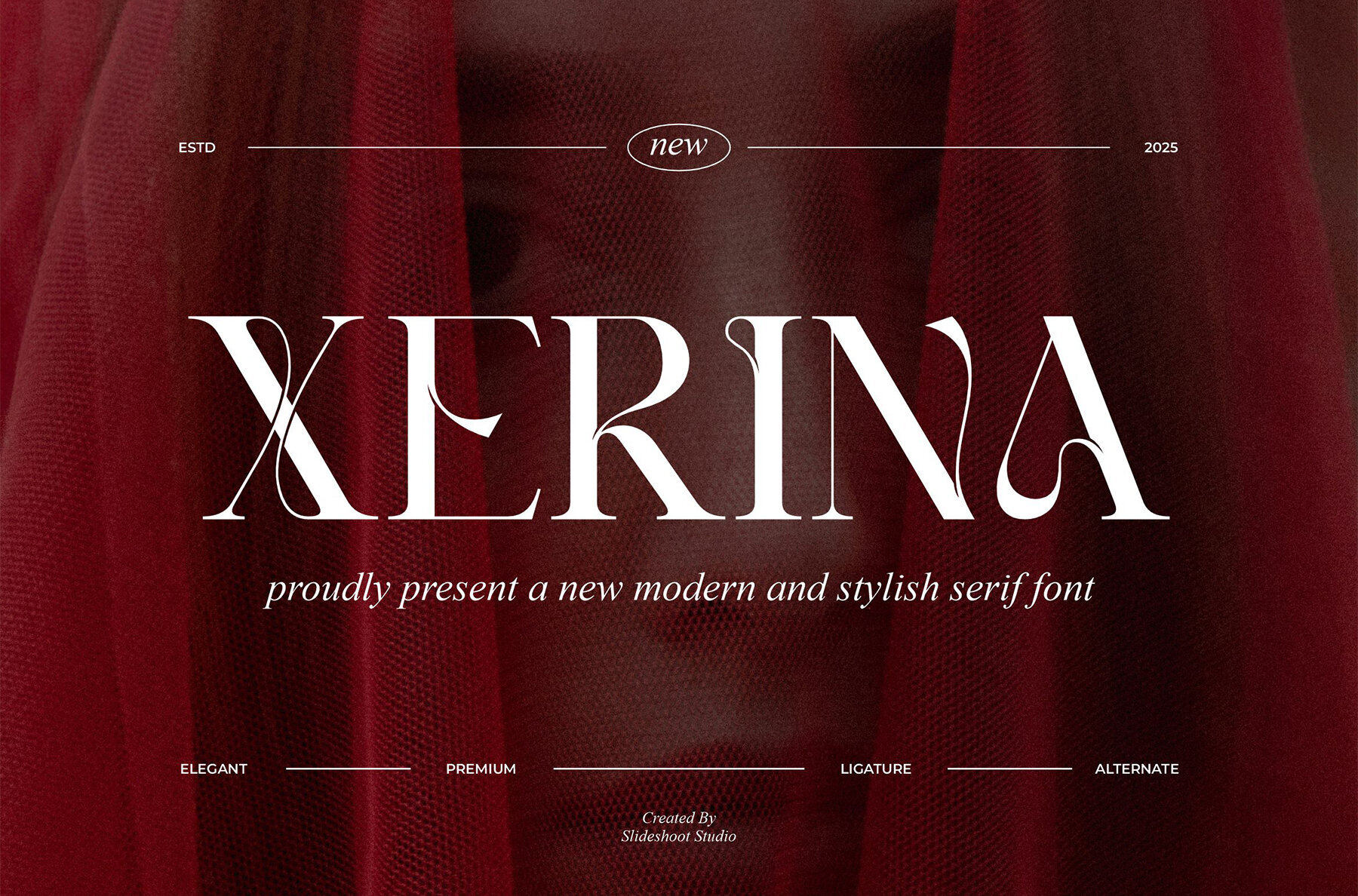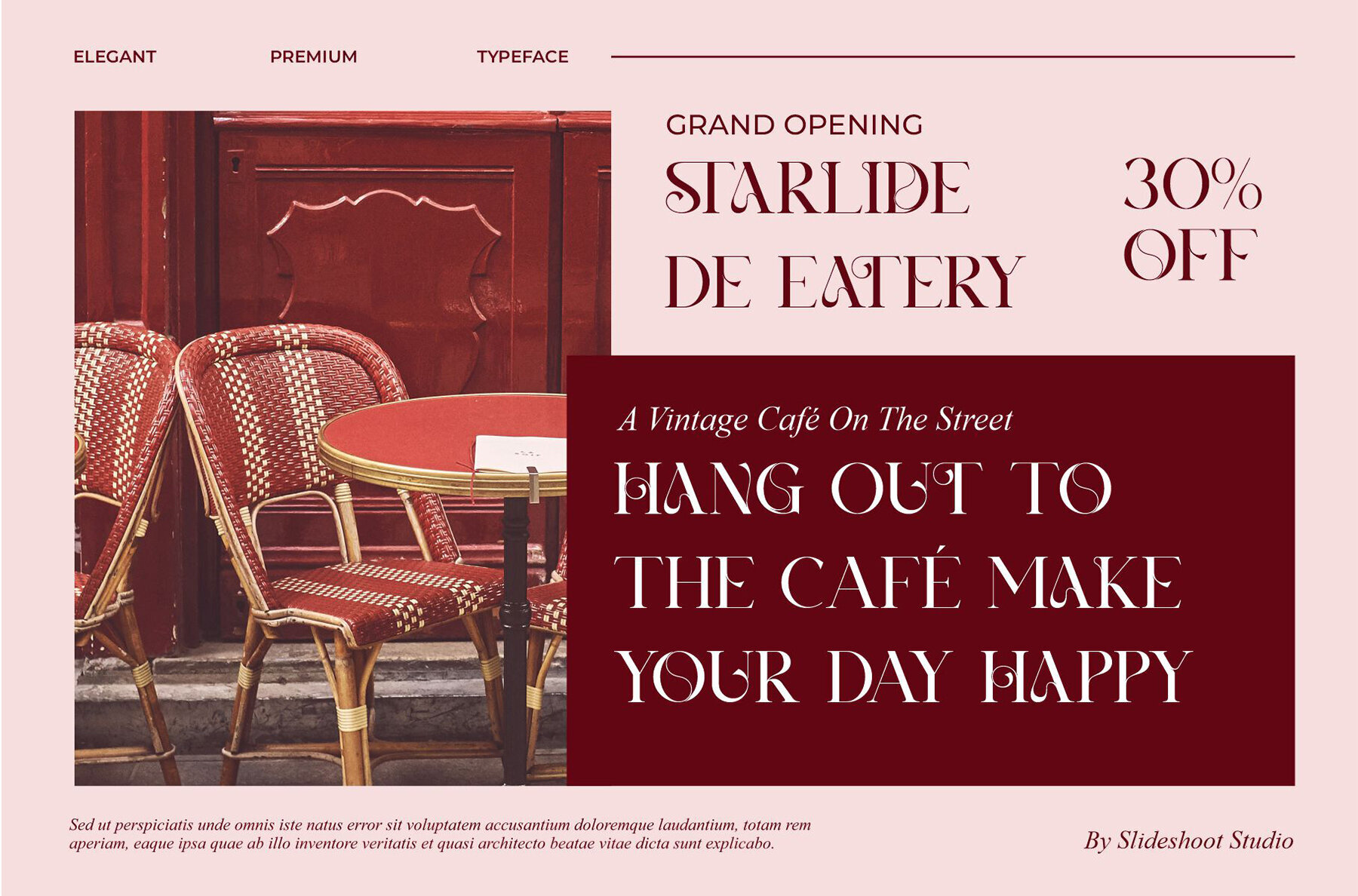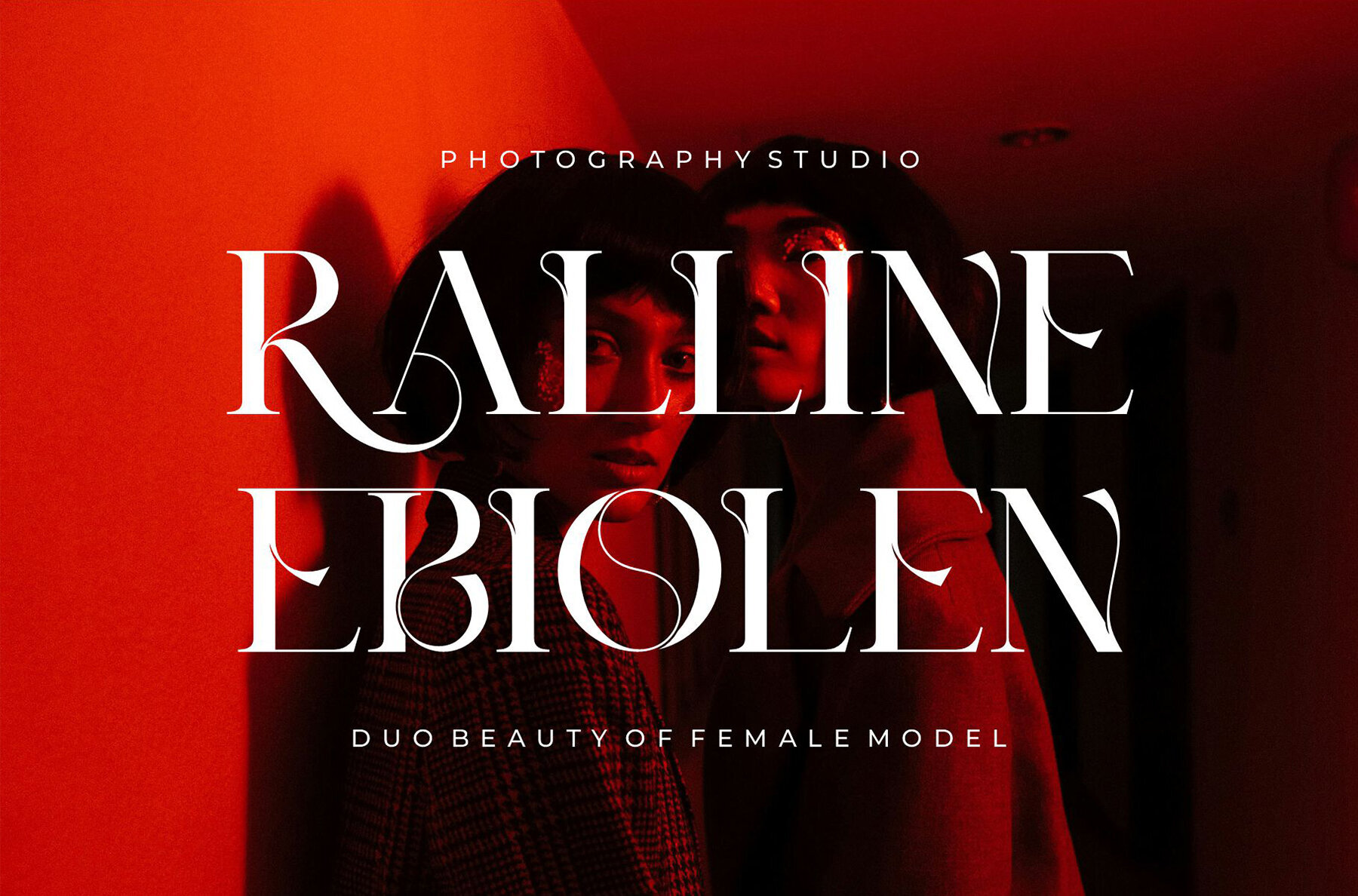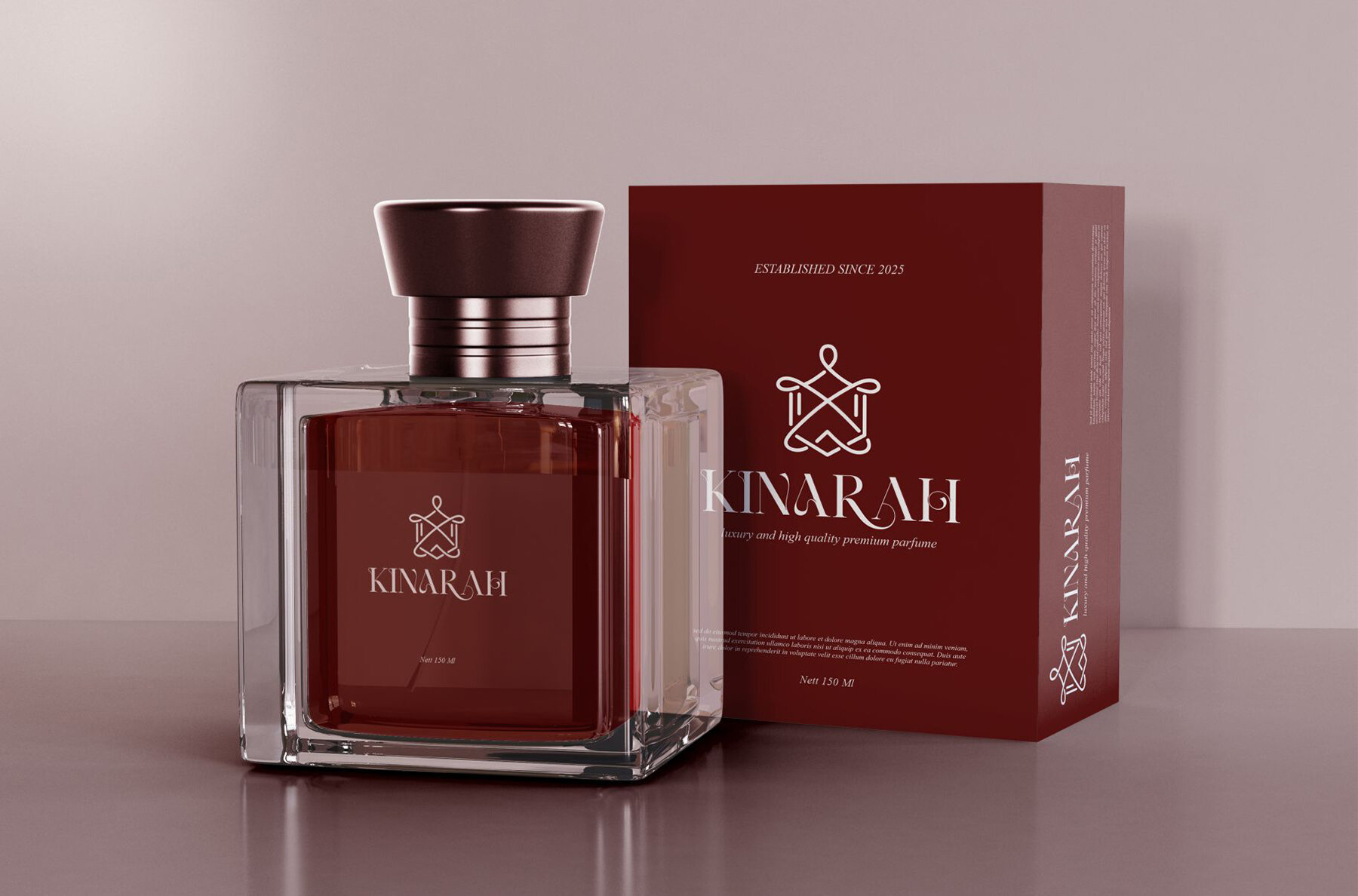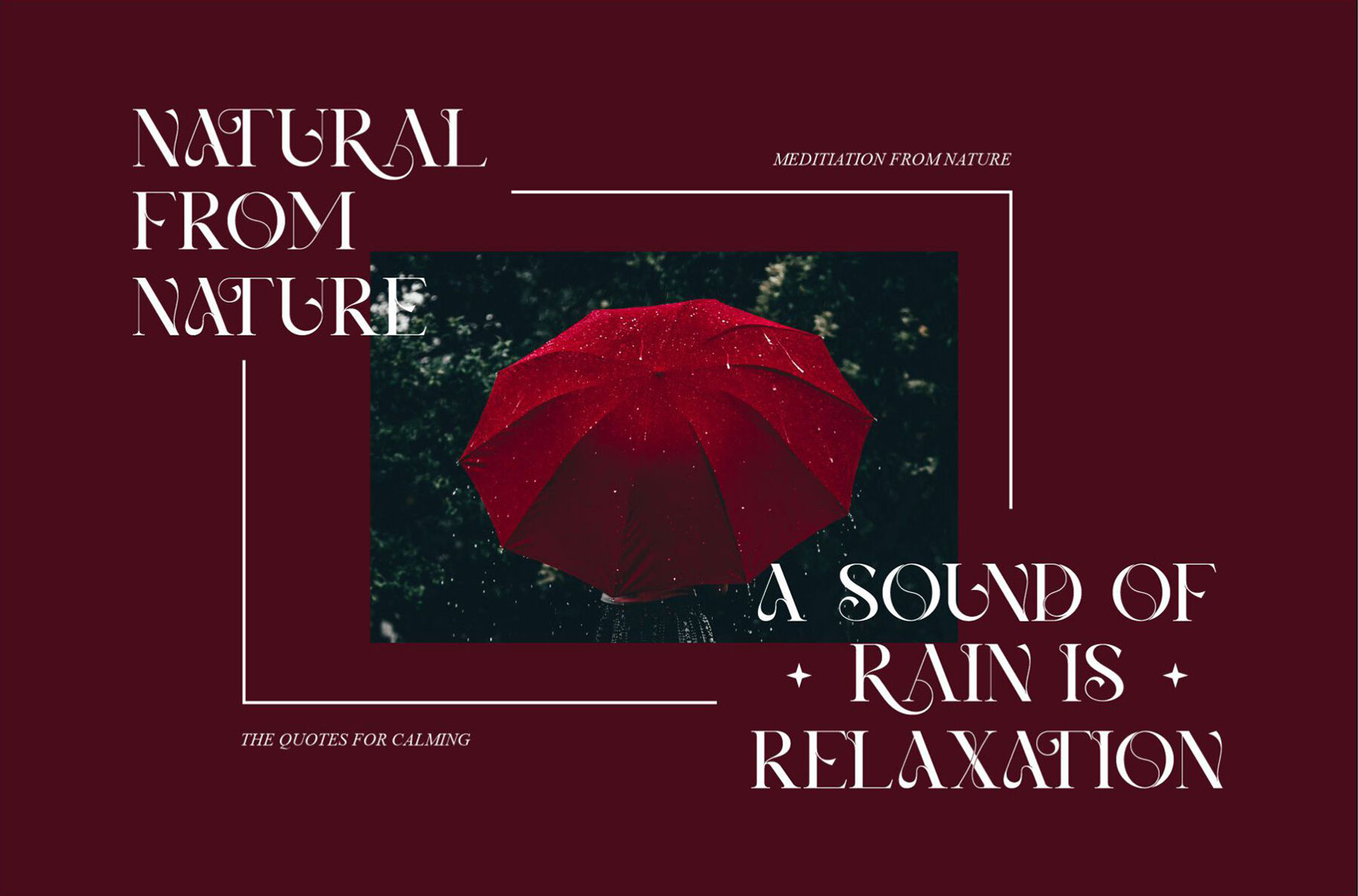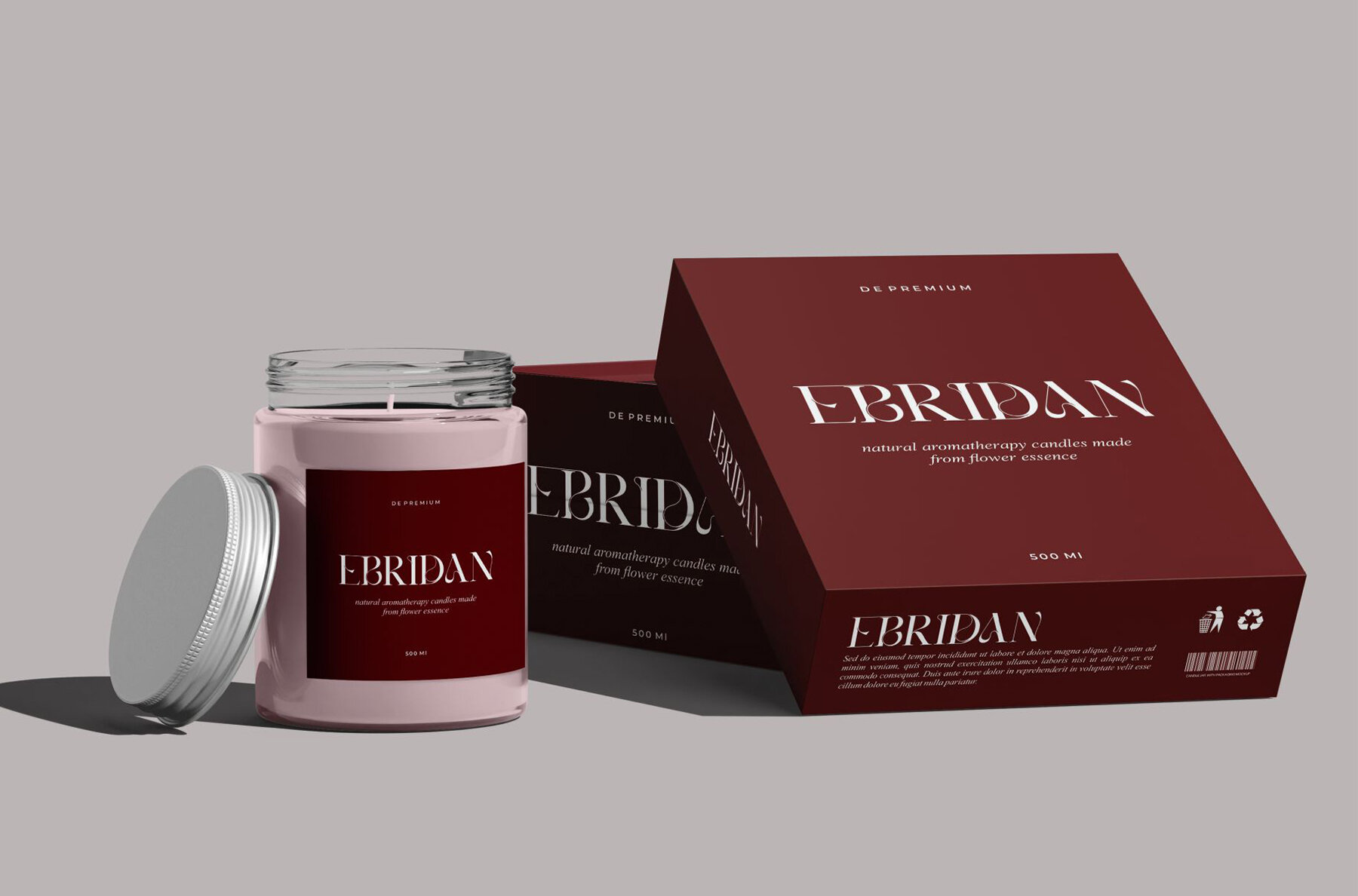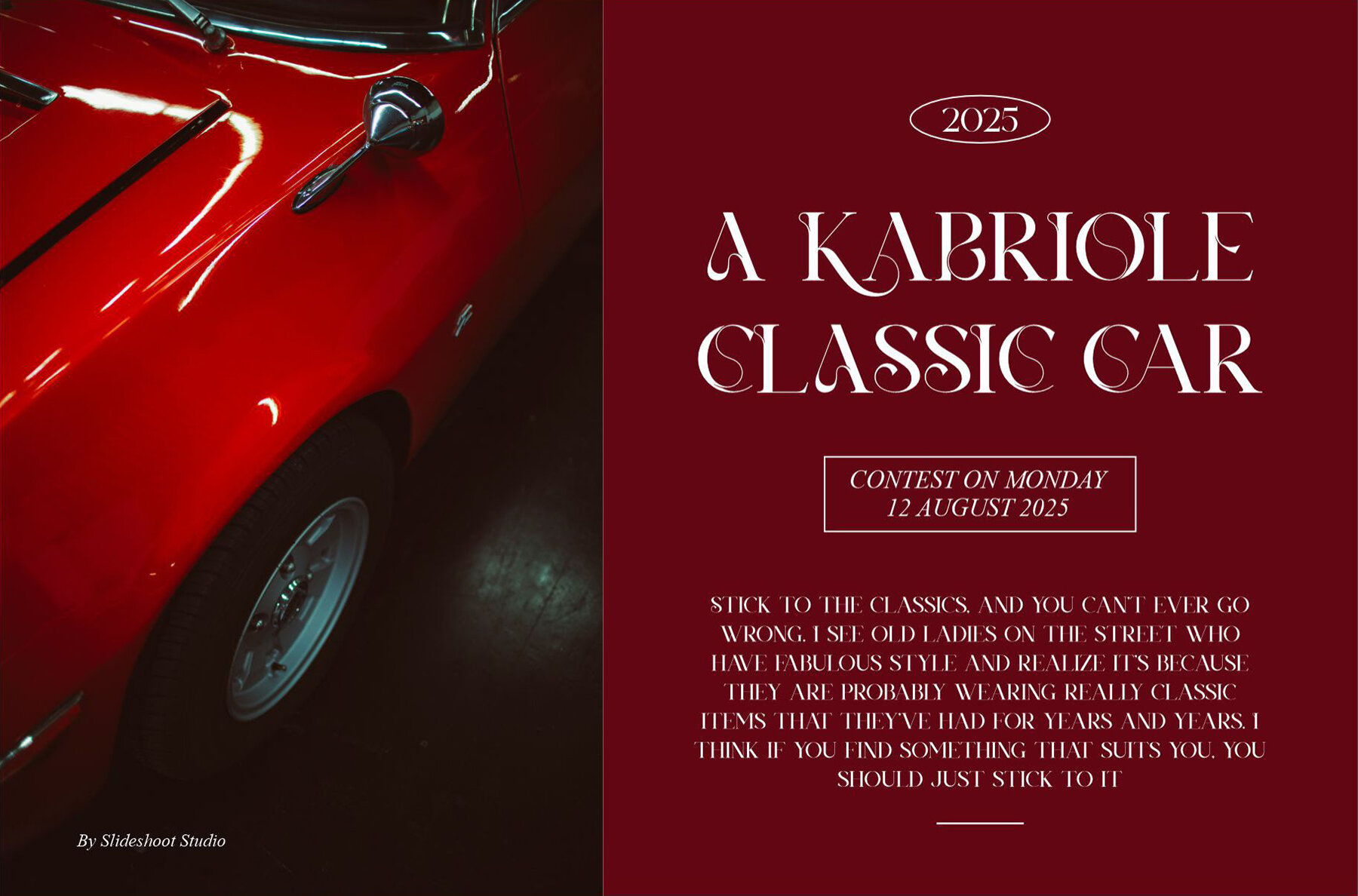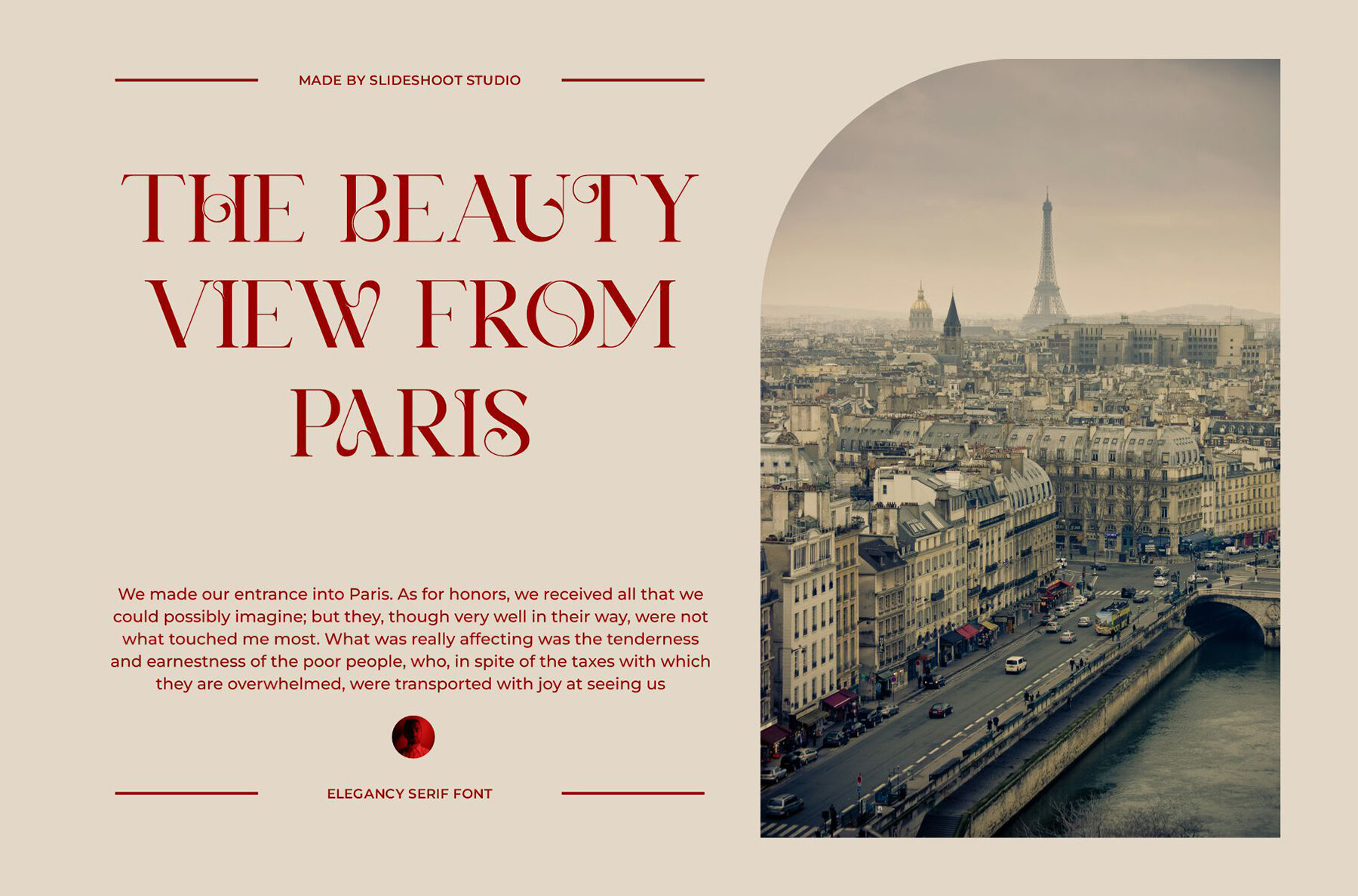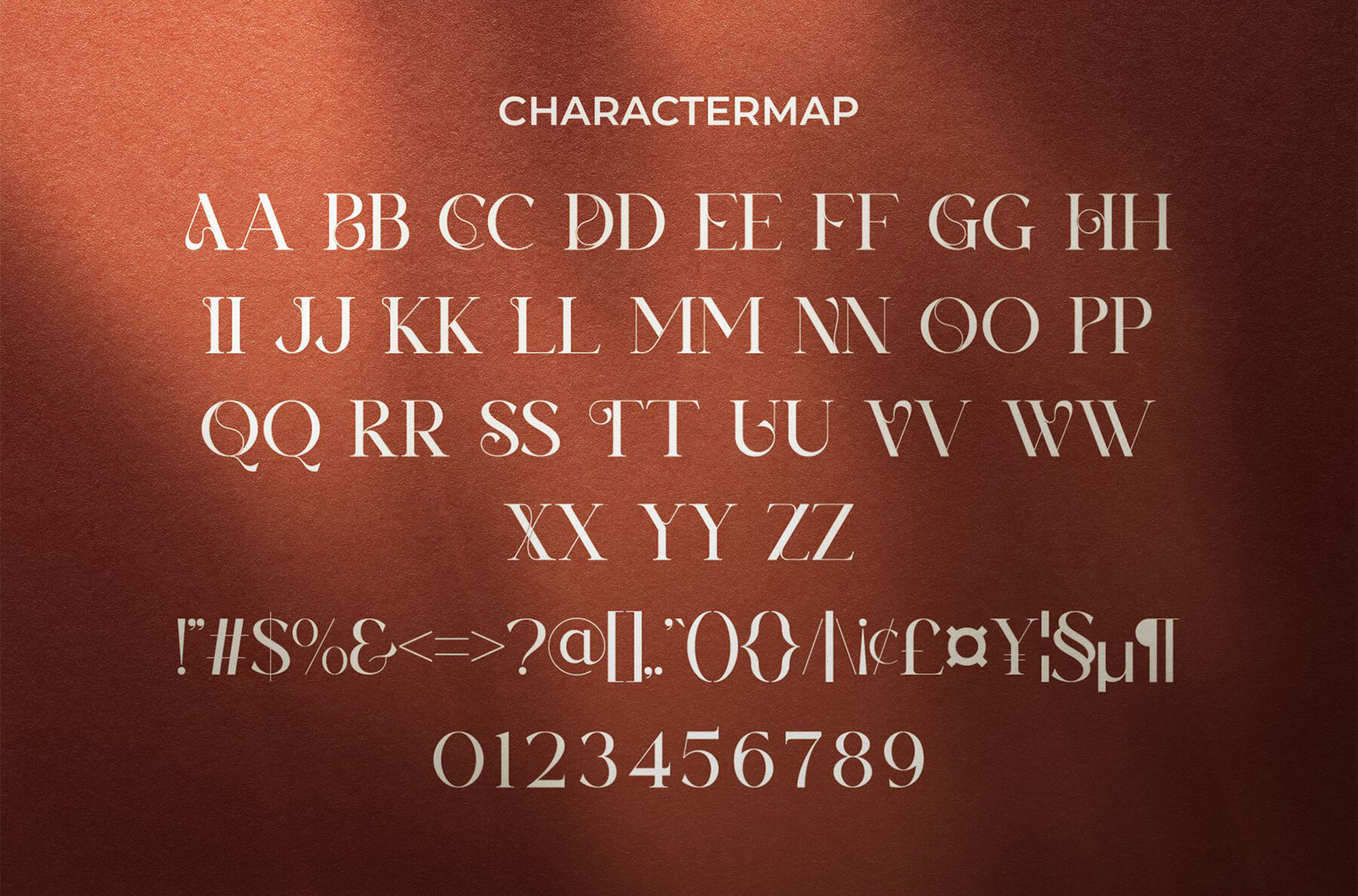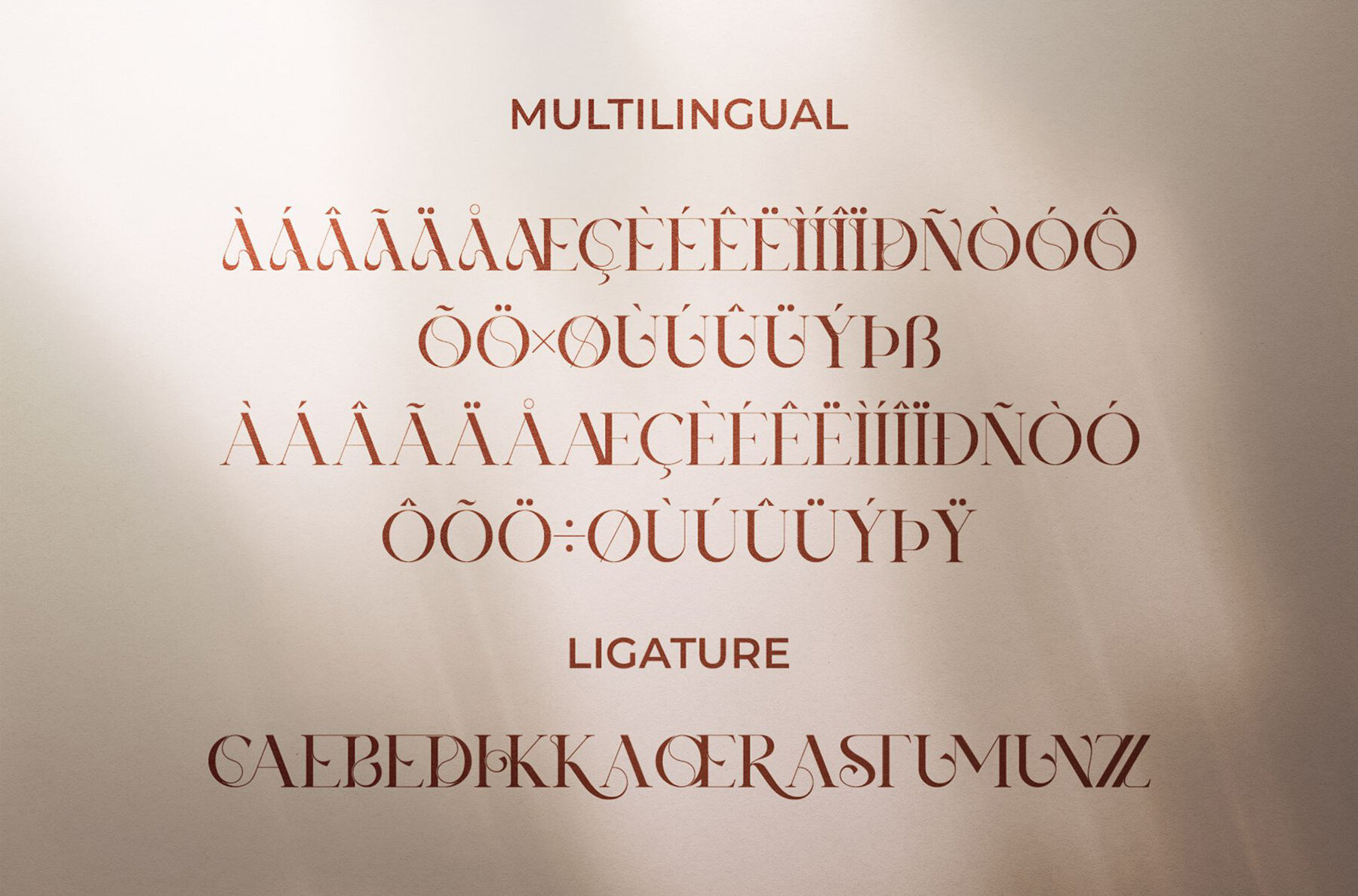
Xerina Font
Xerina Regular
Meet Xerina Serif, an elegant and classy all-caps font that redefines sophistication. Perfect for branding and logos, its refined character is designed to add a touch of class to any project. Imagine your invitation cards, business materials, book titles, and even movie titles elevated with its timeless appeal. Xerina Serif isn't just a font; it's your partner in style, featuring smooth lines and chic ligatures.Xerina Serif: A Touch of Elegance
Features of Xerina Serif